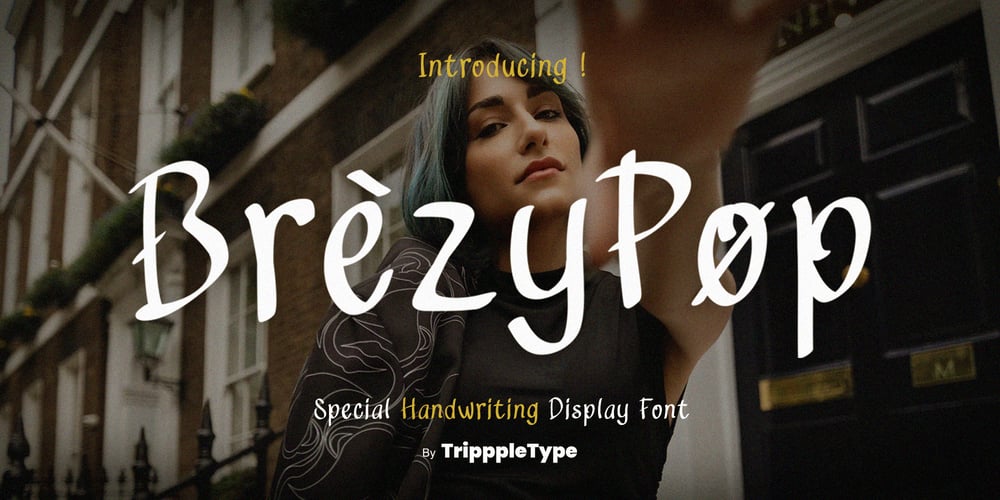
Brezypop Handwritten Font Family was designed by Kang Nur and published by TripppleType. Brezypop Handwritten contains 1 styles and family package options. Bring energy and fun to your content with Brezy Pop, a bubbly handwritten font that’s perfect for story posts and creative videos. Its lively, playful style adds a fresh burst of personality to any project, helping your words dance across the screen. Whether you’re posting on Instagram, creating TikTok content, or designing catchy headlines, Brezy Pop is all about making a fun statement.Ready to inject a dose of playfulness into your posts? Download Brezy Pop today and let your creativity soar with a font that’s as fun as it is functional.